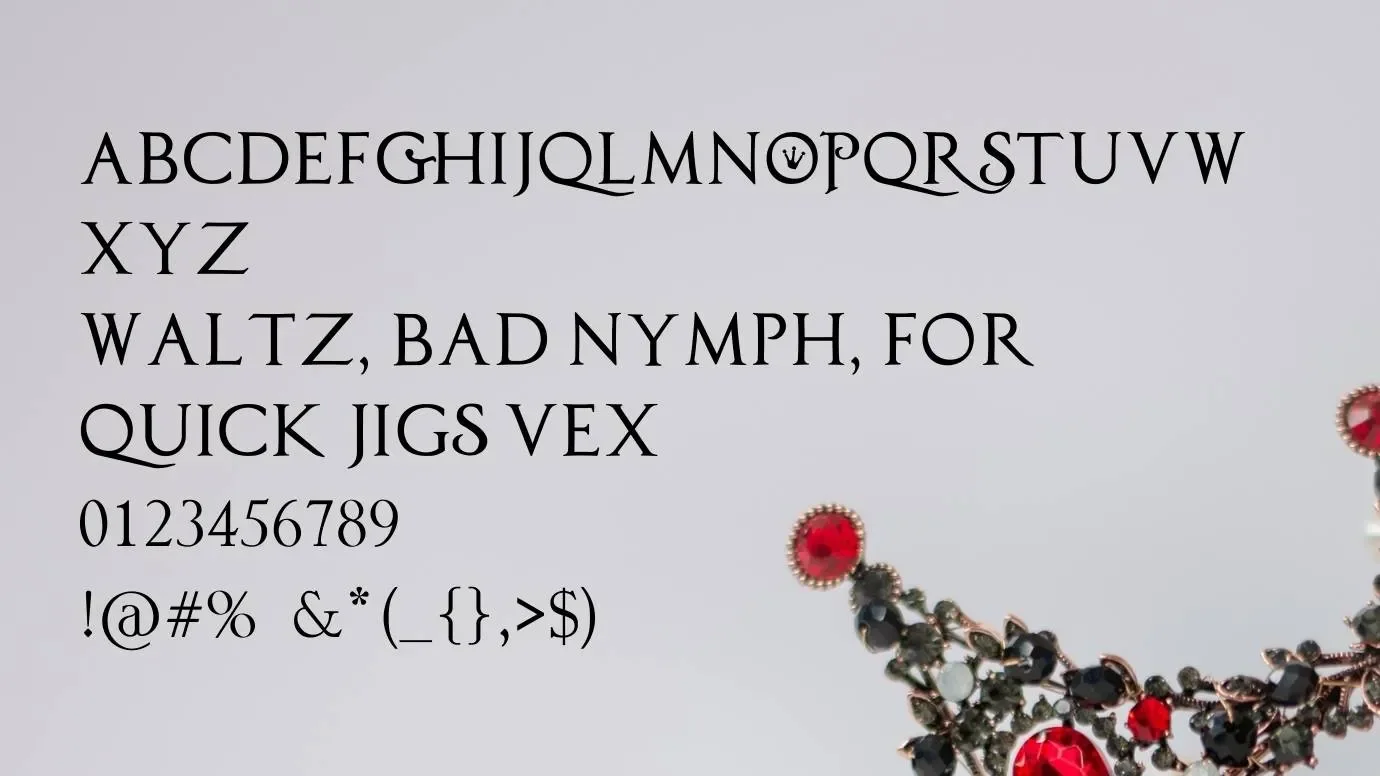
Let’s introduce a fantastic Movie font that is named Princess and the Frog Font. It is a fantastic Disney font that takes inspiration from a movie font that is used on the poster of an American animated musical comedy movie “The Princess and the Frog”. It was first released in 2009 and became everyone’s favorite movie. This film is based on a novel called The Frog Princess was written by E.D.Baker.
The font used on the poster title of that movie is another gorgeous Disney font named Al Princess Jasmin font. The letters used on the poster of this film are made to be custom-made. Juan-e-B is the most popular Disney font designer, who has created this typeface on 7th December and 2011. It has 153 glyphs and more than 200 amazing characters including uppercase, lowercase, numbers, punctuations, icons, and symbols.
Reason to Use Princess and The Frog Font
This typeface gives a very stylish and decorative look to your designs. It is very suitable for Posters, banners, logo designs, gaming purposes, app designs, business cards, invitations cards, gift cards, wedding cards, T-shirt designs, mug designs, product packaging, magazines, social media posts, and more same purposes.
The lettering of this typeface is very attractive and it is well suited for your headlines and titles. You can also create superlative presentations, subheadings, product titling, branding projects, post description with the use of this typeface. Students can also apply this font if they want to give a very unique look for their assignments or notes.
What font are Princess And The Frog font?
This is a stunning movie typeface that belongs to the Disney typeface family. It has been influenced by the movie typeface that is used in the poster of an American animated comedy movie called The Princess and the Frog.
Where can we use Princess And The Frog font?
It has amazing styles and features great readability to text designs. So, it is perfect for your headlines, titles, quotes, and Newspaper headings. For designs, it would give an astonishing touch to your posters, banners, card designs, emblems, brochure layouts, and so on.